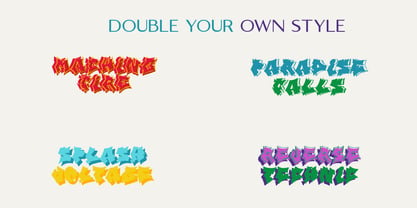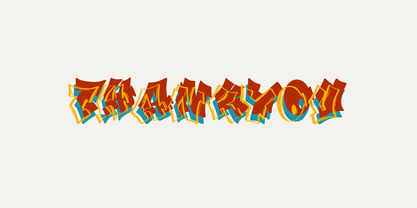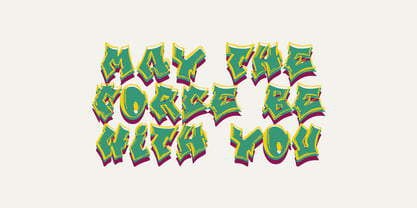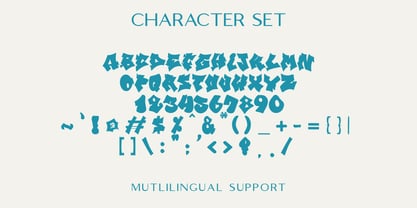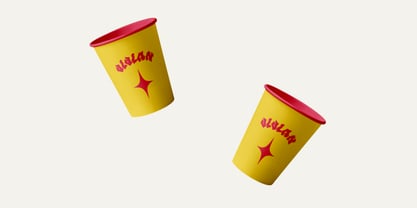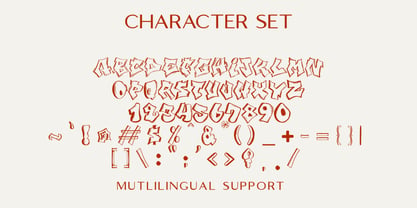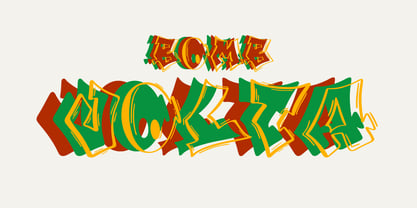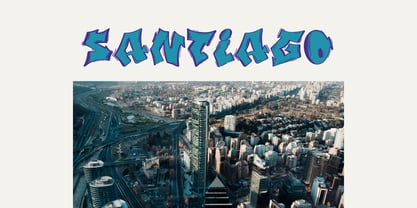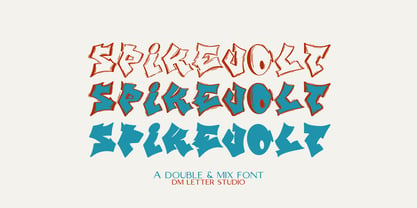
Spikevolt
by DM Studio
The Spikevolt Font Family was designed by Dimas Prasetyo and published by DM Studio. Spikevolt contains 2 styles and family package options. More about this family
Meet Spikevolt, the Graffiti Style Font Spikevolt is a high-impact graffiti display font built for bold street visuals and fast, energetic lettering. The shapes feel aggressive and modern, with a sharp attitude that works perfectly for urban branding. Better yet, Spikevolt comes in two styles: Regular and Outline, so you can switch from solid punch to framed, layered looks in seconds. Use Spikevolt for streetwear logos, music posters, gaming graphics, YouTube thumbnails, sticker designs, event flyers, and edgy merch. As a result, your typography looks loud, urban, and instantly attention-grabbing.   Why Spikevolt sells First, the Regular and Outline styles make it easy to create depth without extra effects. Next, the strong graffiti structure stays readable in bold layouts and high-contrast color palettes. Then your design process gets faster because you can layer Outline over Regular for quick 3D or shadow-like results. Moreover, graffiti and street aesthetics continue trending across music, gaming, and youth culture niches. Therefore, Spikevolt fits perfectly into modern display font collections.   Fast layouts with the Spikevolt Font Start with short, punchy words for maximum impact. After that, use the Outline version to add dimension, highlight, or sticker-style edges. Because the font is bold and edgy, keep backgrounds simple for better readability. In addition, pair it with a clean sans serif for secondary info like dates, prices, or captions. Finally, try palettes like black and neon green, red and white, purple and cyan, or orange and charcoal for powerful street contrast.   Creative uses and quick wins Streetwear logos and apparel graphics Music posters, DJ flyers, and album covers Gaming thumbnails and esports branding Sticker packs and urban social media content What you get 2 font styles: Regular and Outline Uppercase and lowercase letters Numbers and basic punctuation Design tips for Spikevolt Use Spikevolt for headlines, logos, and short phrases instead of long paragraphs. Also, layer Regular + Outline to create instant impact for posters and thumbnails. For print, test outline thickness and contrast so details stay sharp. For digital, scale slightly larger to keep edges crisp on small screens. Finally, combine it with spray textures, halftone dots, or simple shapes for a stronger street vibe.
Designers: Dimas Prasetyo
Current Foundry: DM Studio